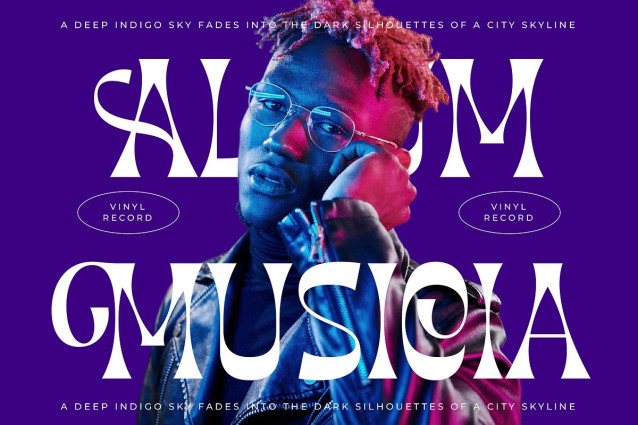
Morgai Retan Font
Morgai Retan Font a typeface designed to captivate and intrigue. It bridges the gap between traditional serif structures and avant-garde motion, offering a visual experience that is both sophisticated and daring.
Inspired by the fluid distortions of psychedelic art and the structured beauty of high-fashion layouts, this font captures a sense of rhythmic movement. The letterforms seem to dance across the page, drawing inspiration from the liquid aesthetics of the late 60s and early 70s while maintaining a clean, contemporary finish.
Defined by its dramatic curves and sharp terminals, this modern serif display delivers a powerful branding impact for any project. It functions as a piece of luxury typography, offering a high-contrast serif look that feels expensive and curated, making it the perfect editorial font for high-end digital or print media.
As the modern serif trend continues to dominate the creative industry, designers are seeking more expressive and character-driven typography. Morgai Retan perfectly captures the shift toward editorial display fonts that break away from minimalism to provide a unique, memorable identity.
This versatile typeface is a dream for logo design and upscale branding identities that require a touch of the extraordinary. From bold packaging and luxury fashion spreads to bespoke wedding invitations and high-concept editorial layouts, it elevates every canvas it touches.
Unlock total creative freedom with an extensive set of 25 ligatures and 41 alternates that allow for custom-tailored compositions. The package is fully multilingual, including a wide range of international characters and unique swashes that ensure your message reaches a global audience with consistent style.